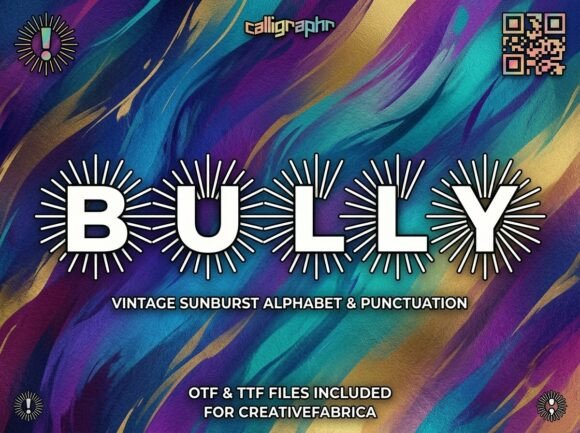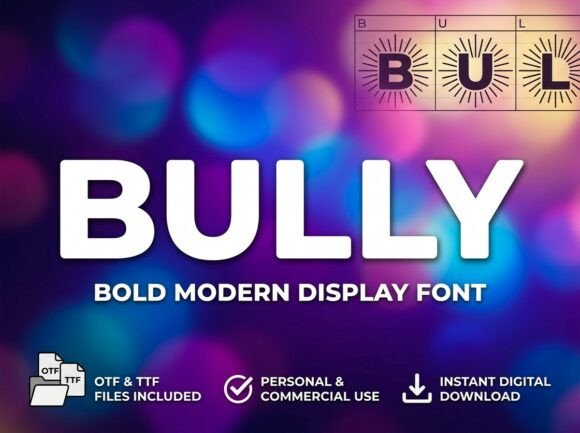
Ignite Your Designs with Bully Font: The Ultimate Display Typeface
In the world of typography, a font can make or break a design. When it comes to creating eye-catching and energetic visuals, Bully Font is the perfect choice. This explosive display typeface is designed to capture the vibrant and energetic soul of your brand, making it ideal for designers and crafters looking to take their designs to the next level.
The Unique Features of Bully Font
Bully Font boasts heavy, ultra-clean sans-serif letterforms that are framed by rhythmic starburst rays. These rays radiate a sense of celebration and high impact, making Bully perfect for designs that require a bold and attention-grabbing silhouette. The massive structural weight of this font ensures that your message will not go unnoticed, making it perfect for independent festival branding, flash-sale promotional graphics, energetic youth-oriented logos, and high-impact social media headers.
Perfect for High-Impact Designs
Bully Font is specifically designed to make a statement. Its unique features make it perfect for a variety of design applications, including:
• Independent Festival Branding: Create eye-catching posters, flyers, and social media graphics that will draw in crowds with Bully Font’s bold and energetic style.
• Flash-Sale Promotional Graphics: Create a sense of urgency and excitement with Bully Font’s attention-grabbing silhouette, perfect for limited-time offers and promotions.
• Energetic Youth-Oriented Logos: Give your brand a vibrant and energetic personality with Bully Font’s unique and playful style.
• High-Impact Social Media Headers: Stand out in a crowded social media landscape with Bully Font’s bold and attention-grabbing design.
Why Choose Bully Font?
With so many fonts available, why choose Bully Font? Here are just a few reasons why designers and crafters are falling in love with this explosive display typeface:
• Unique and Memorable: Bully Font’s unique features make it instantly recognizable and memorable, ensuring that your designs will stand out from the crowd.
• Versatile: Bully Font is perfect for a variety of design applications, from posters and flyers to social media graphics and logos.
• Easily Readable: Despite its bold and energetic style, Bully Font remains easily readable, making it perfect for designs that require a clear and concise message.
Tips for Using Bully Font Effectively
To get the most out of Bully Font, here are a few tips to keep in mind:
• Use it Sparingly: Due to its bold and energetic style, Bully Font is best used sparingly to avoid overwhelming the viewer.
• Pair it with a Simple Font: Pair Bully Font with a simple font to create a striking contrast and add visual interest to your design.
• Experiment with Colors: Bully Font looks great in a variety of colors, so don’t be afraid to experiment and find the perfect hue to match your brand.
Bully Font is a game-changer for designers and crafters looking to add a bold and energetic touch to their designs. With its unique features, versatility, and easily readable style, this explosive display typeface is perfect for a variety of design applications. Whether you’re looking to create eye-catching posters, energetic logos, or high-impact social media headers, Bully Font is the perfect choice. So why wait? Ignite your designs with Bully Font today and take your designs to the next level!